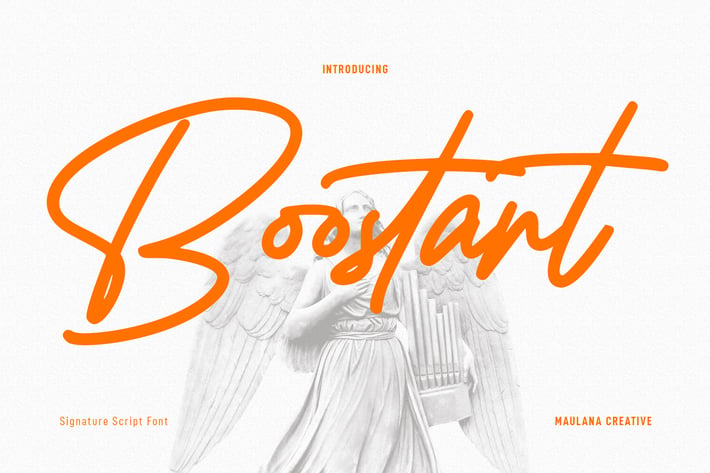
Boostart Script Font
Boostart West is an expressive slanted modern signature script font. With bold consist stroke, fun character with a bit of ligatures and alternates. To give you an extra creative work. Boostart font support multilingual more than 100+ language. This font is good for logo design, Social media, Movie Titles, Books Titles, a short text even a long text letter and good for your secondary text font with sans or serif. Make a stunning work with Boostart font.